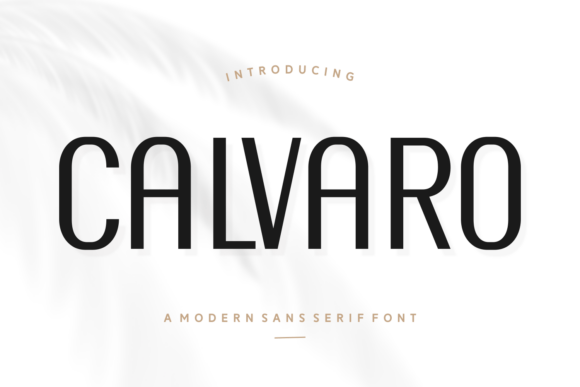
Introducing Calvaro Font: The Epitome of Modern Sans-Serif Elegance
In the realm of typography, the right font can make all the difference in the aesthetic and readability of a design. For those seeking a modern sans-serif font that exudes cleanliness, simplicity, and effortless readability, Calvaro Font stands out as an exceptional choice. This comprehensive article delves into the characteristics, benefits, and applications of Calvaro Font, highlighting its suitability for crafting a fresh, minimalist look in logos, headlines, and various design projects.
What is Calvaro Font?
Calvaro Font is a contemporary sans-serif typeface distinguished by its smooth lines and balanced shapes. Designed with readability and versatility in mind, Calvaro offers a clean and simple style that aligns perfectly with modern design trends. Its uncomplicated and straightforward appearance makes it an ideal candidate for a wide range of applications, from digital interfaces to print materials.
Key Features of Calvaro Font
- Modern Sans-Serif Design: Calvaro boasts a sleek, modern sans-serif design that lends itself well to both digital and print applications.
- Clean and Simple Style: The font’s clean lines and simple style ensure that it remains highly legible, even at smaller sizes.
- Smooth Lines and Balanced Shapes: The smooth lines and carefully balanced shapes of Calvaro contribute to its exceptional readability and aesthetic appeal.
- Versatility: Calvaro’s neutral appearance makes it versatile for use in various design contexts, including logos, headlines, body text, and more.
- Easy to Read: The font’s design prioritizes readability, making it an excellent choice for body text and content that requires easy consumption.
Applications of Calvaro Font
Given its versatile and highly legible design, Calvaro Font finds applications in a myriad of design projects. Some of the notable applications include:
- Logo Design: The clean and modern appearance of Calvaro makes it an excellent choice for logo design, especially for brands aiming for a minimalist and contemporary look.
- Headlines and Titles: Calvaro’s sleek lines and balanced shapes make it perfect for headlines and titles, adding a touch of modern elegance to any design.
- Digital Interfaces: The font’s readability on digital screens makes it suitable for user interfaces (UI), web design, mobile apps, and more.
- Print Materials: Calvaro also excels in print applications such as brochures, posters, business cards, and magazines, offering a fresh and minimalist aesthetic.
The Benefits of Using Calvaro Font
Choosing Calvaro Font for your design projects comes with several benefits:
- Enhanced Readability: Its clean design ensures that your content is easily readable, enhancing user experience.
- Modern Aesthetic: Calvaro lends a modern and fresh look to your designs, making them stand out in a crowded digital landscape.
- Versatility: The font’s neutral design allows it to be used across various platforms and design applications.
- Time-Saving: With Calvaro, designers can save time in selecting and pairing fonts, thanks to its standalone elegance and versatility.
Calvaro Font, with its modern sans-serif design, clean and simple style, and exceptional readability, presents an excellent choice for designers aiming to infuse their projects with a fresh, minimalist look. Its versatility across various design applications, from logos and headlines to digital interfaces and print materials, makes it a valuable asset in any designer’s toolkit. By incorporating Calvaro into your design workflow, you can enhance the aesthetic appeal and readability of your projects, ensuring they resonate with your audience effectively.